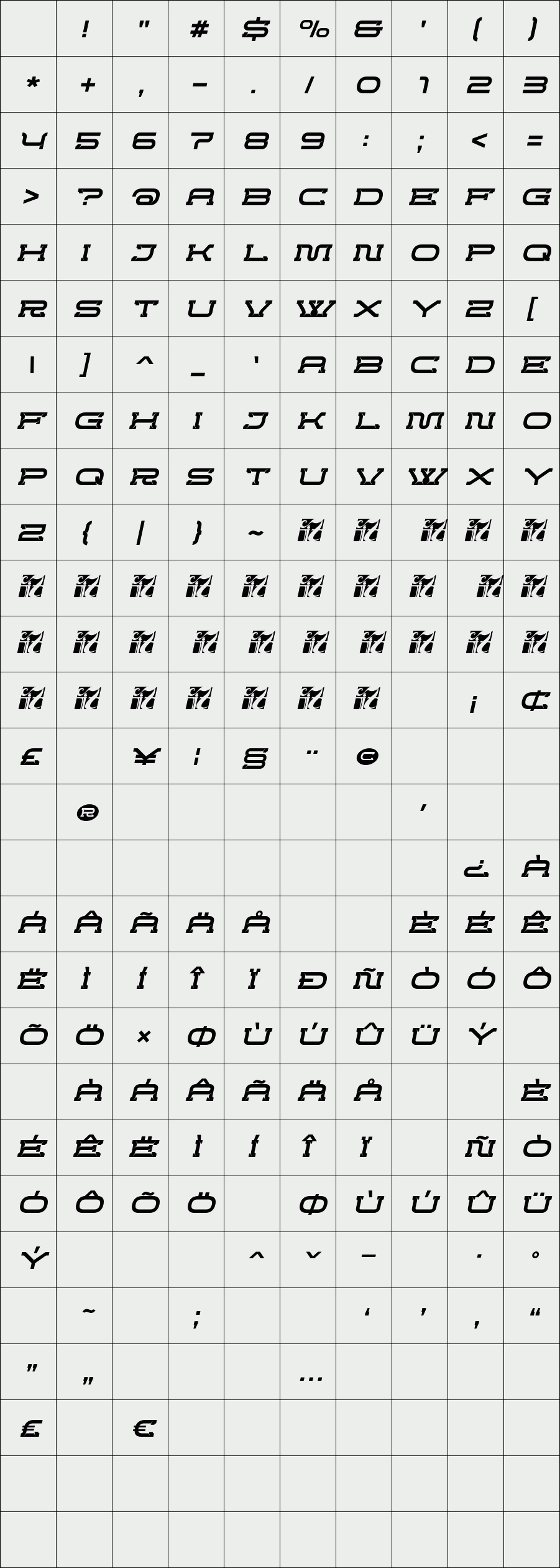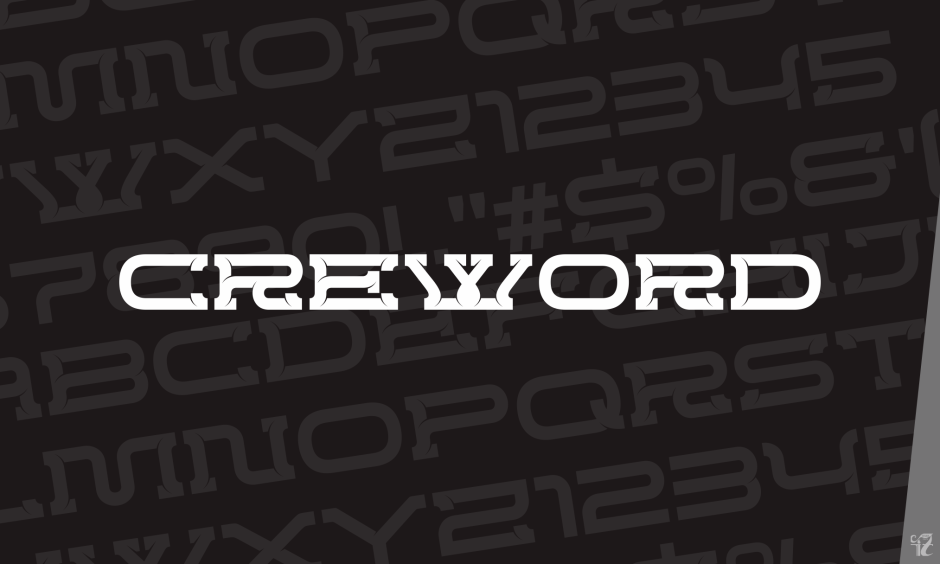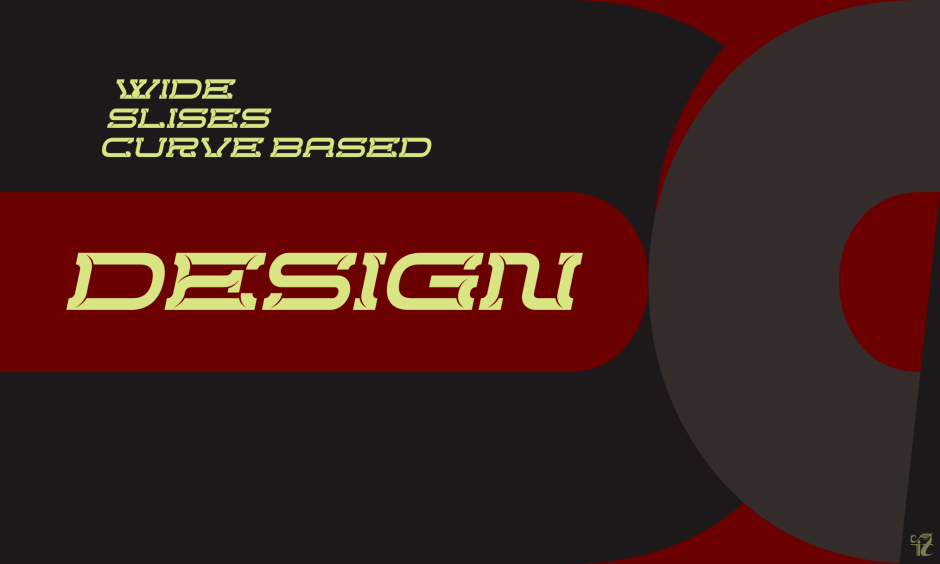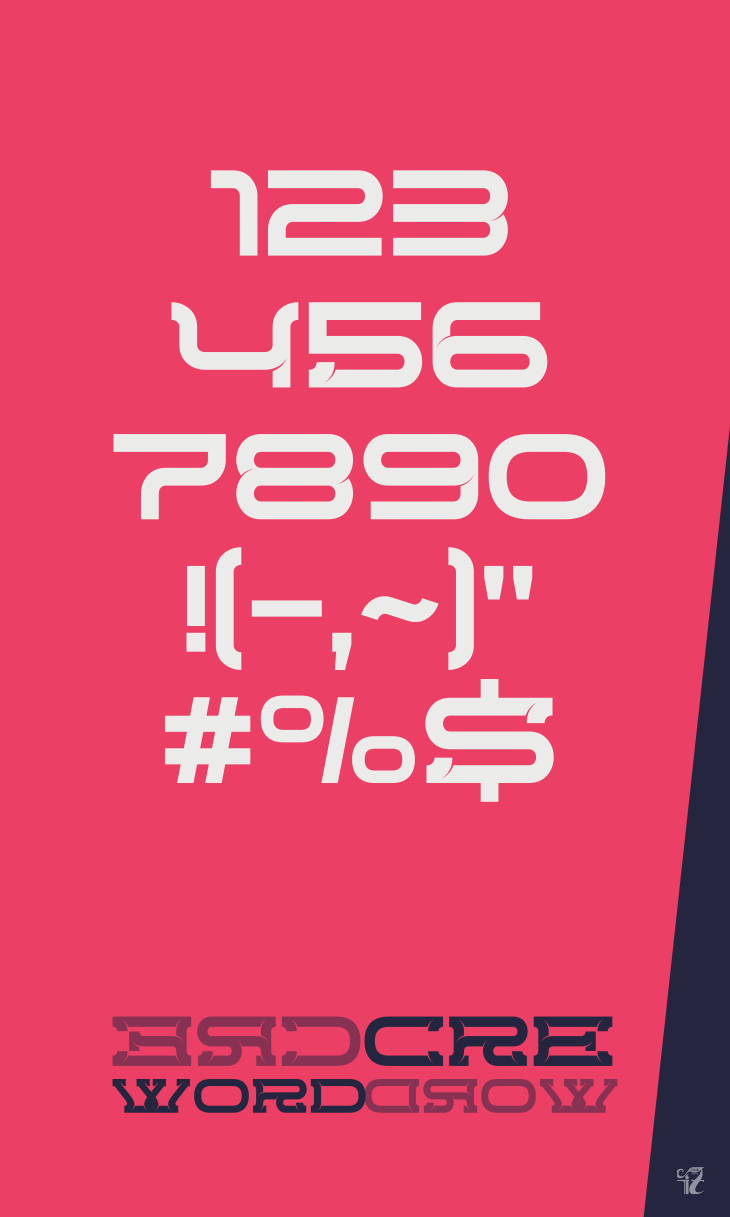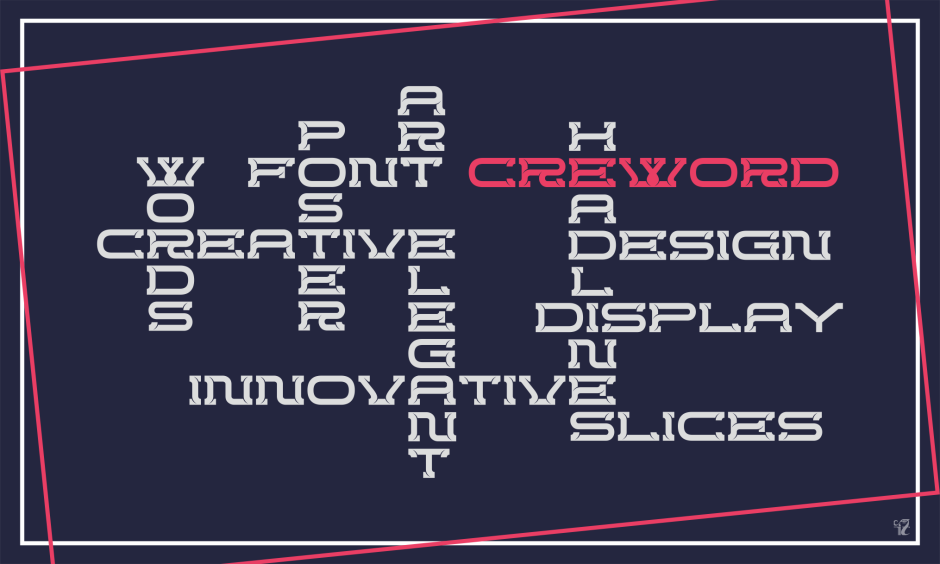
CREWORD
/ CREWORD ITALIC
CREWORD is a wide font best for headline on posters, websites, and displays. A circle and wide curve based decorated with slices makes this font looks modern, elegant, and best for your creative design.